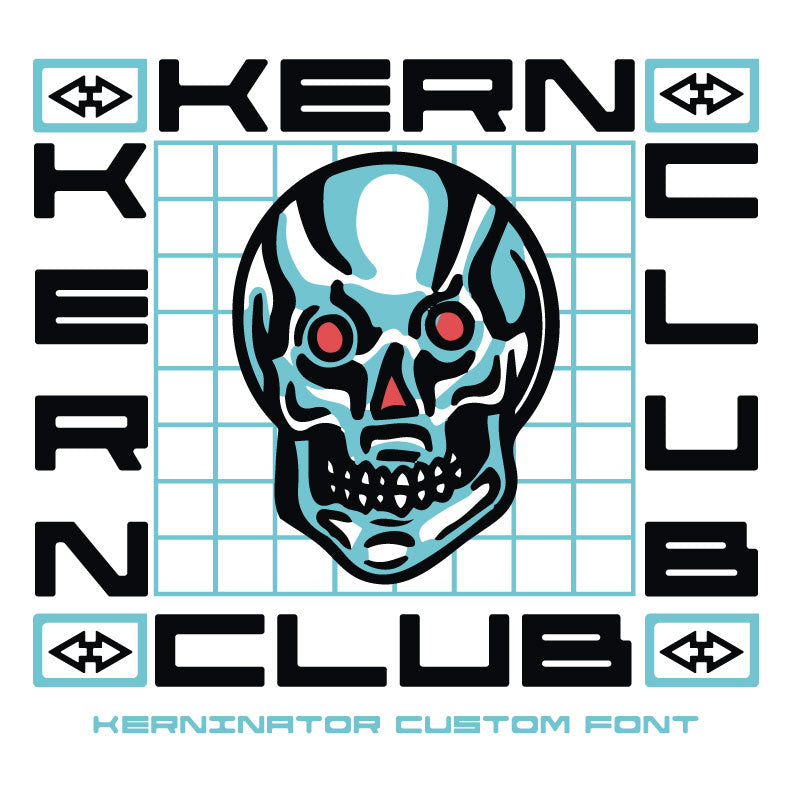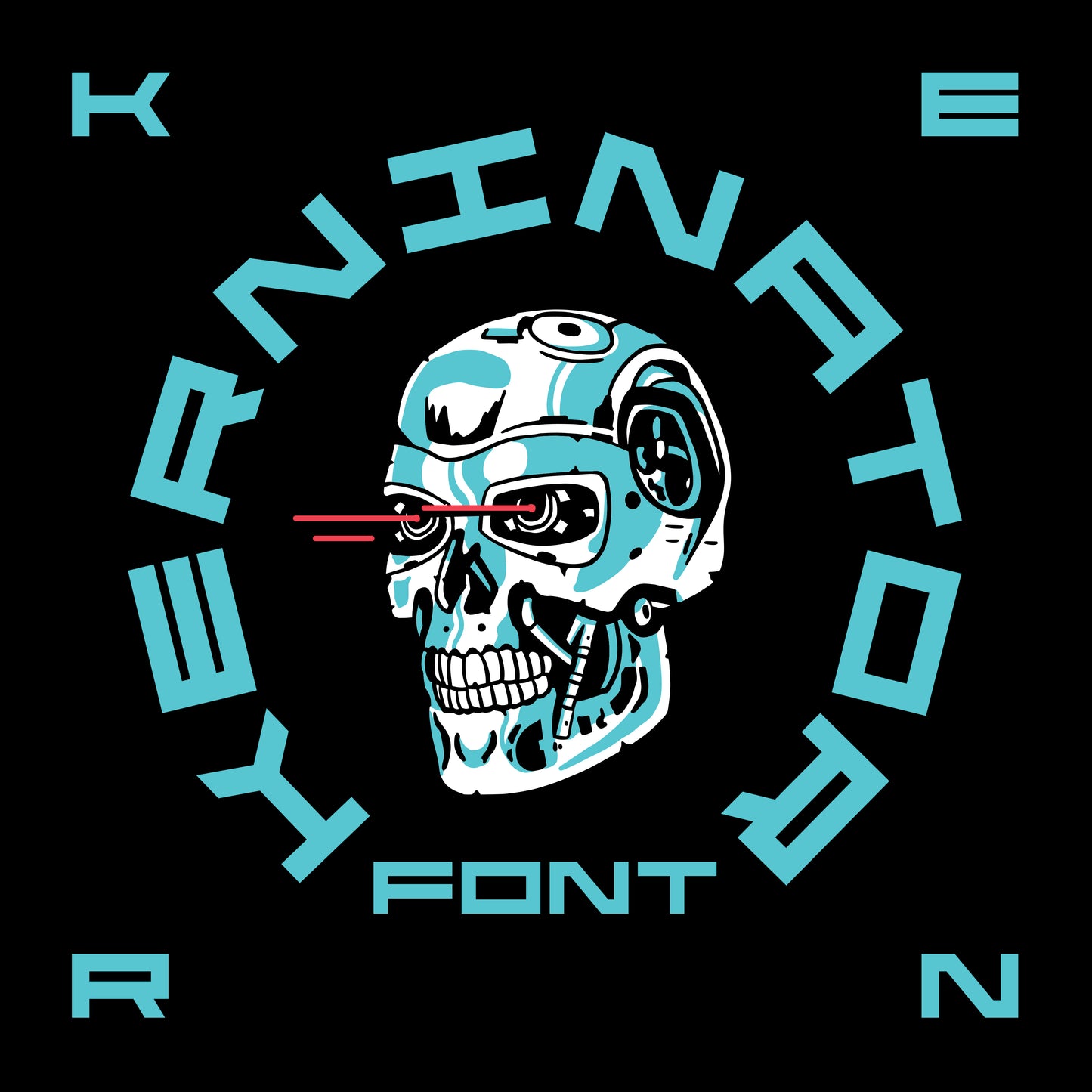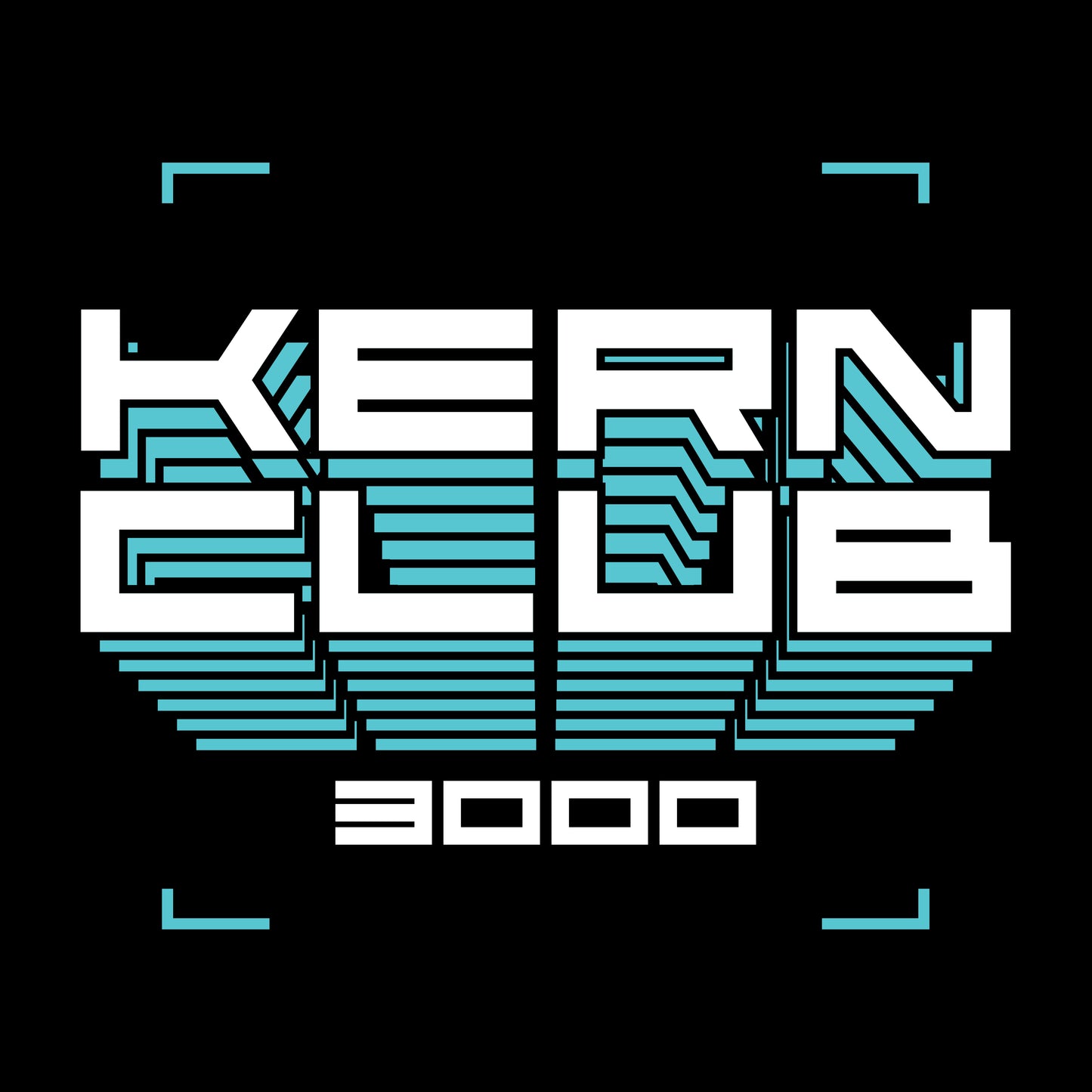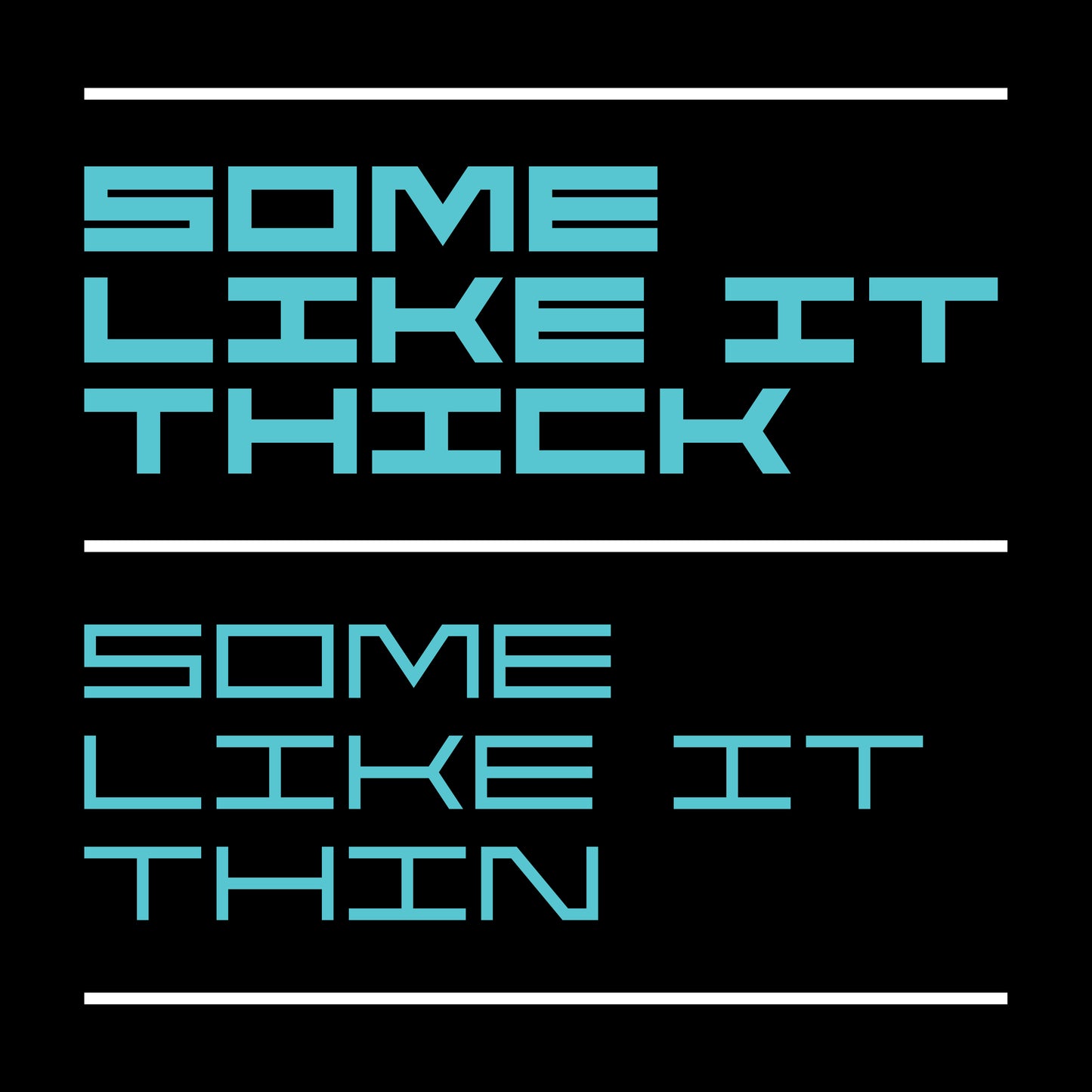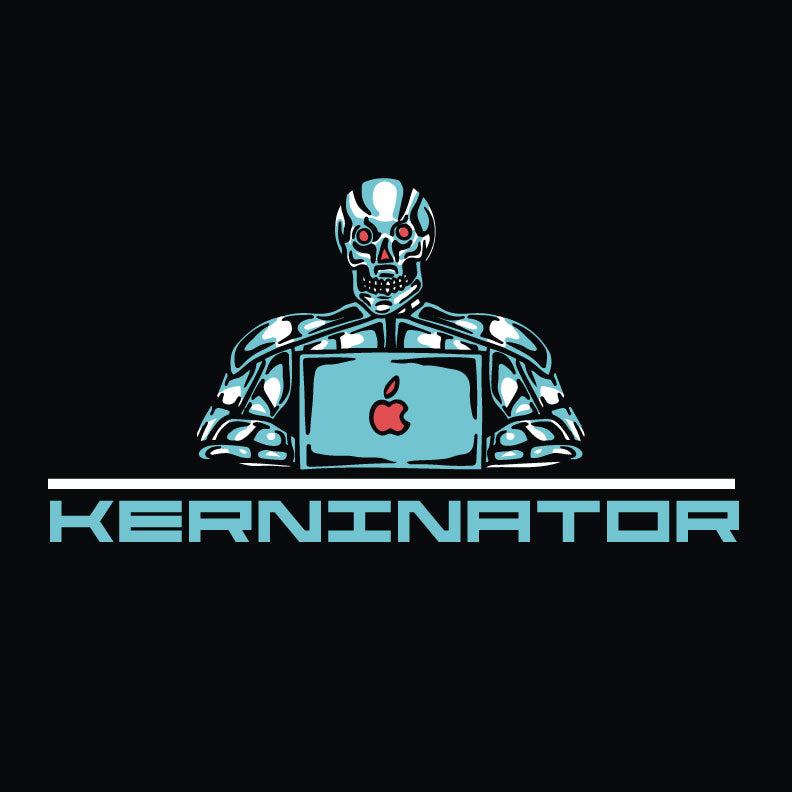
Kerninator Font
Futuristic display font inspired by our favorite childhood film.
Includes thick and thin version- Thick Uppercase Character Set A-Z
- Thin Lowercase Character Set A-Z
- Numerals & Simple Punctuation